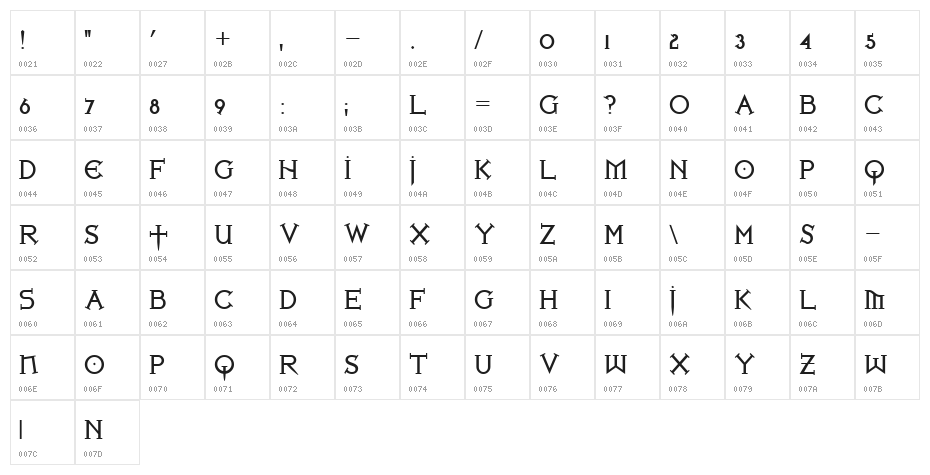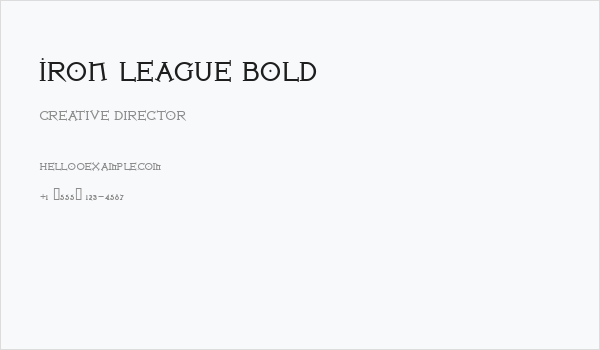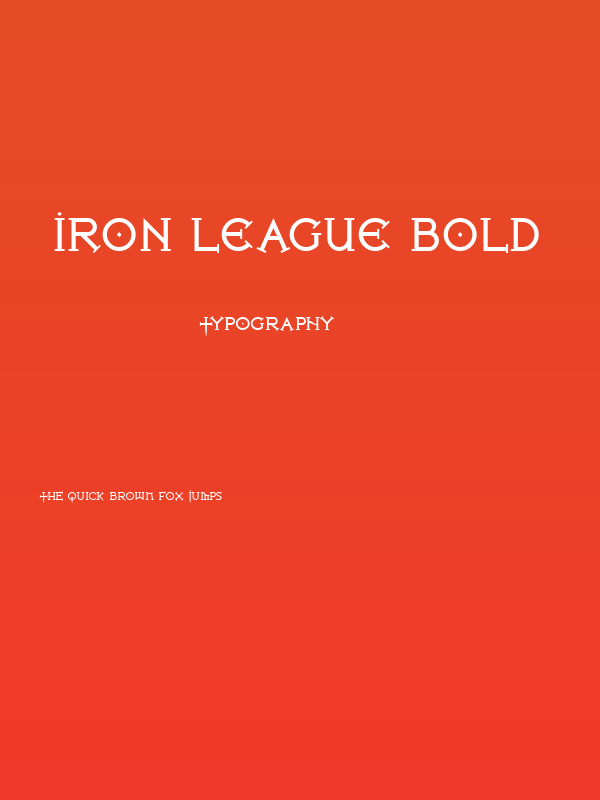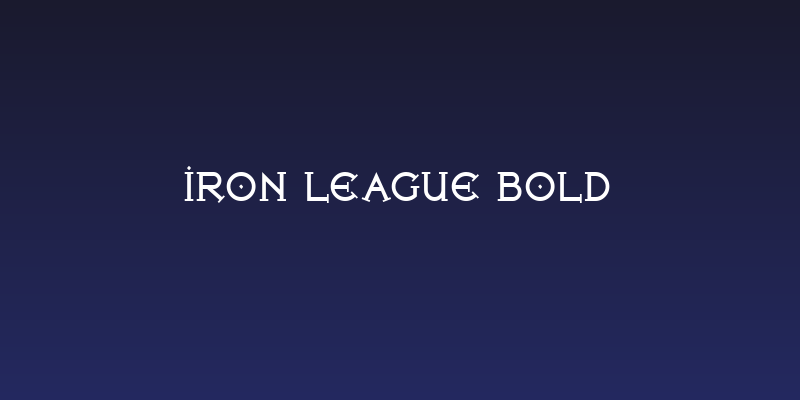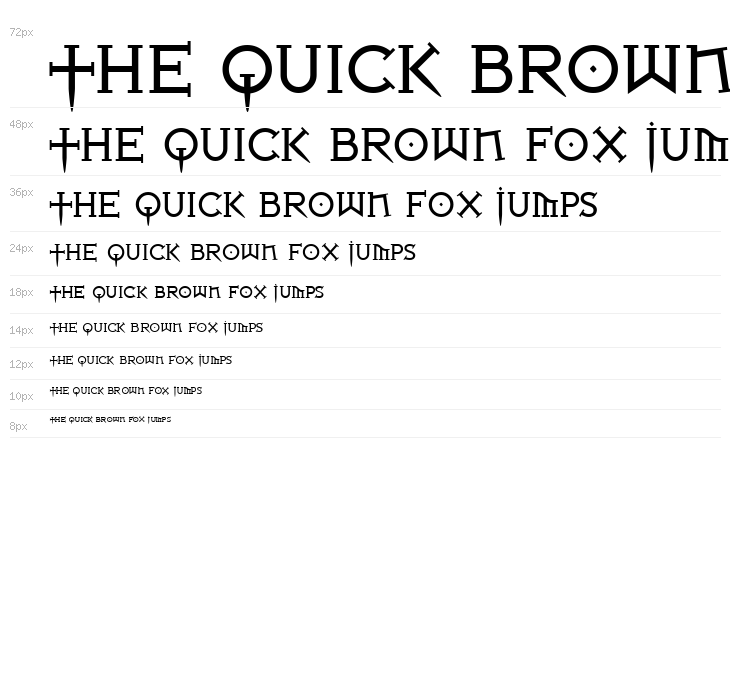
Iron League Bold Font
Iron League Bold Description
This font features a bold and striking design with sharp, angular edges and a distinct geometric style. The characters are crafted with a unique blend of modern and vintage elements, creating a sense of strength and authority. The uppercase letters exhibit a commanding presence, while the lowercase letters maintain a consistent style that complements the overall design. Numbers and special characters are equally bold, ensuring uniformity across all text. The font's design is reminiscent of industrial or mechanical themes, making it suitable for projects that require a robust and impactful visual presence.
| Overall Style | Modern, Industrial |
| Proposed Projects | Ideal for branding, logos, posters, and any design requiring a bold, authoritative look. |